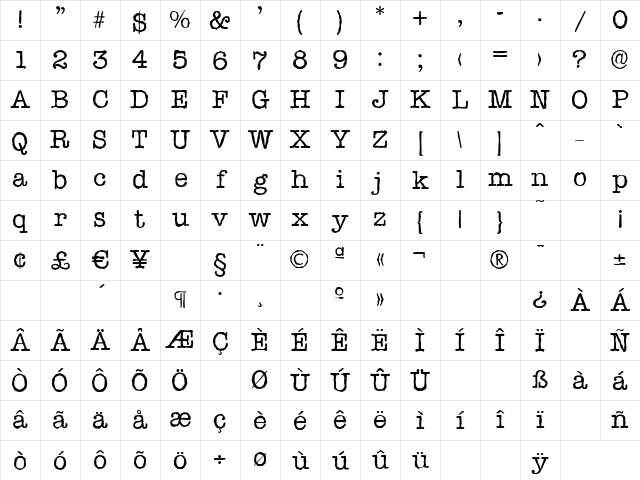
TypewriterAntique wears its vintage influences proudly, with letterforms that recall mid-century signage, classic packaging, and nostalgia-driven design.
Font Pairing: Combine TypewriterAntique with a simple slab or neutral sans - period-accurate companions reinforce the vintage feel without competing for attention.
Pro Tip: Lean into TypewriterAntique's period character by pairing it with aged paper textures, muted colour palettes, and vintage illustration styles.